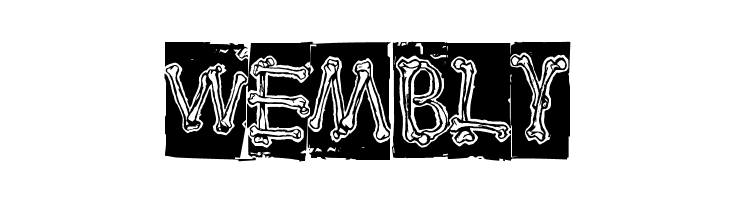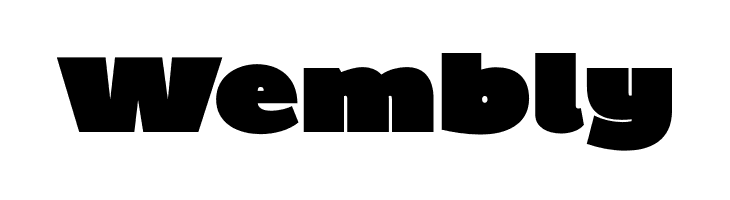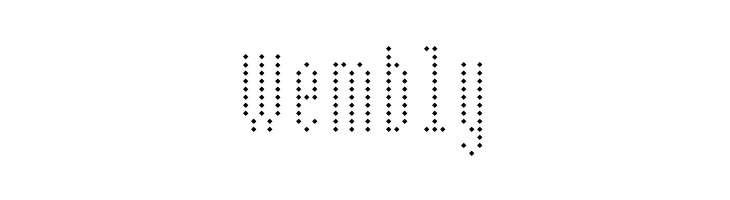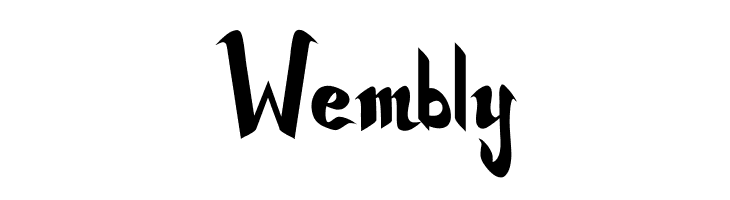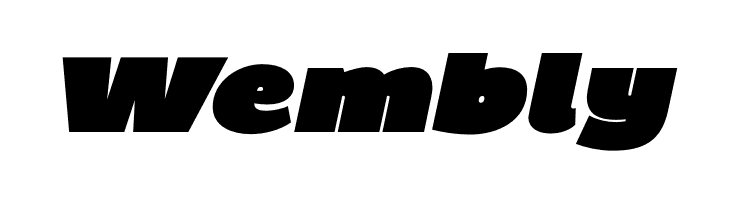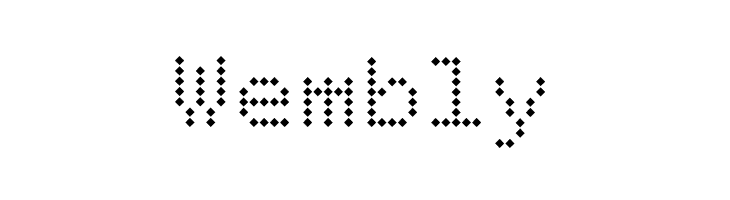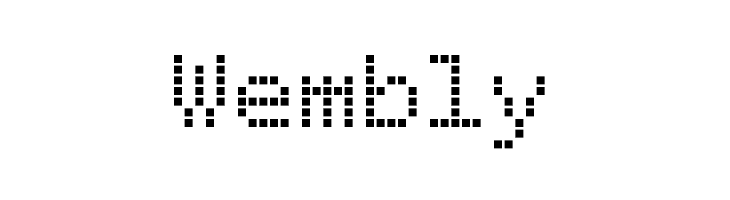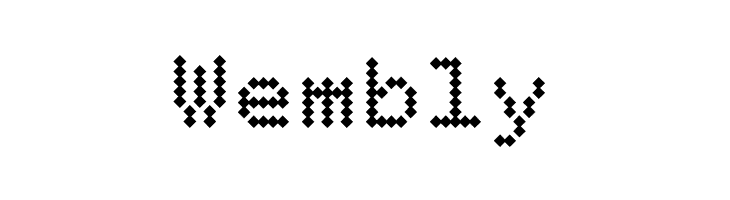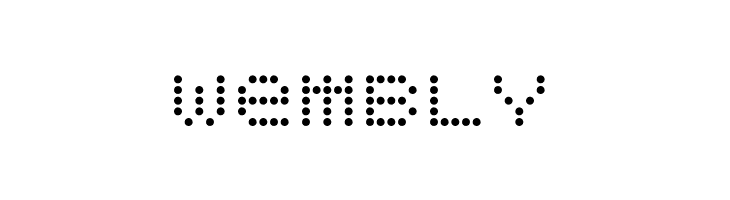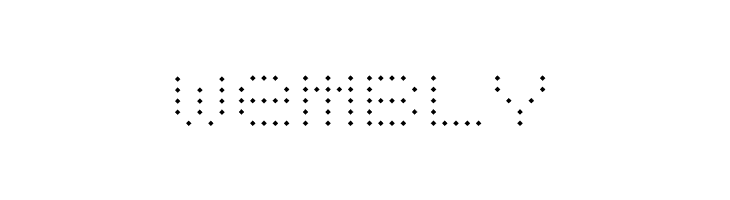
A bold, bone-themed font ideal for spooky or Halloween projects.
A decorative font with characters designed to look like bones, perfect for spooky themes.
A pixelated, blocky font with a retro digital aesthetic.
A geometric, triangular pixel-style font with a modern digital aesthetic.
A bold, gothic-style font with sharp edges and dramatic curves.
A bold, rounded font with a modern and playful style.
A bold, geometric font with thick strokes and strong visual impact.
A bold, heavy font with wide, robust characters and rounded edges.
A bold, italicized font with high contrast and tight spacing, perfect for impactful designs.
A modern, dotted font with a playful and digital aesthetic.
A bold, dotted font with a modern, pixelated style.
A modern, dotted font with a playful and minimalist design.
A dotted, digital-style font with a retro aesthetic.
A modern, pixelated font composed of diamond-shaped dots, perfect for digital and retro designs.
A decorative font with characters formed by diamond-shaped dots, offering a pixelated look.
A dotted, pixelated font with a geometric and digital appearance.
A pixelated font composed of diamond-shaped dots, offering a digital and modern look.
A bold, diamond-dotted font with a pixelated, geometric style.
A light, dotted font with characters formed by diamond-shaped dots, offering a modern and decorative style.
A dotted font with a digital, retro aesthetic.
A dot matrix style font with a retro digital display aesthetic.
A dotted, geometric font with a digital, pixelated style.
A dot-based, pixelated font with a retro digital style.
A modern, dot-based font with a retro digital display aesthetic.
A pixelated, bold font with a retro digital aesthetic.
A modern, dotted font with a geometric and playful design.
A dot matrix style font with uniform spacing and a modern, tech-inspired look.
A modern, dotted font with a playful and bold appearance.
A modern dotted font with a digital, tech-inspired aesthetic.